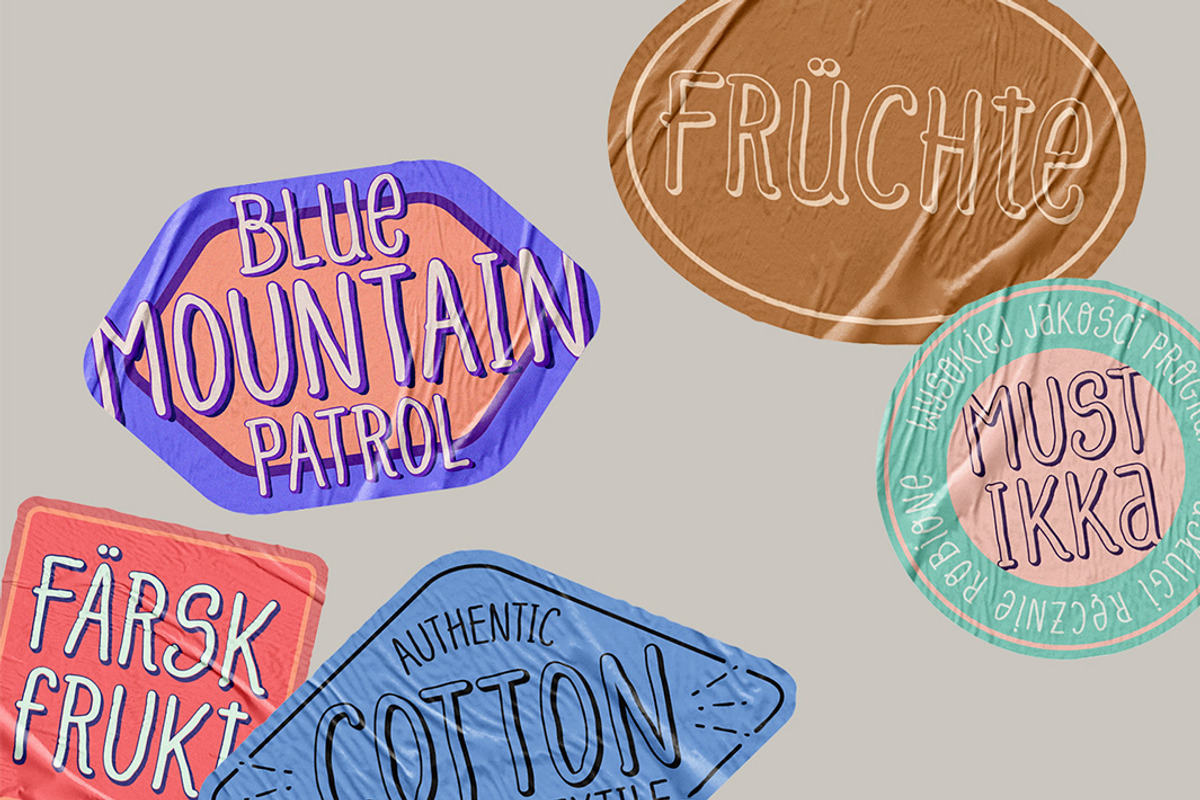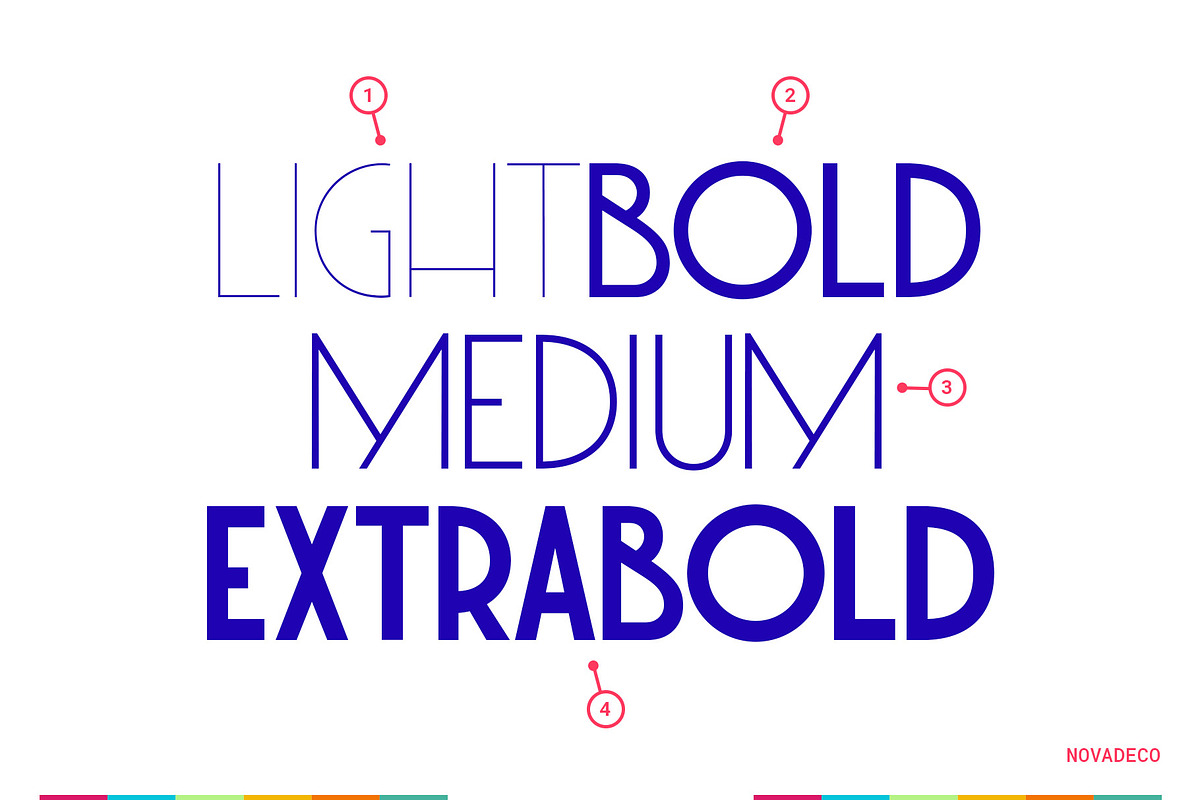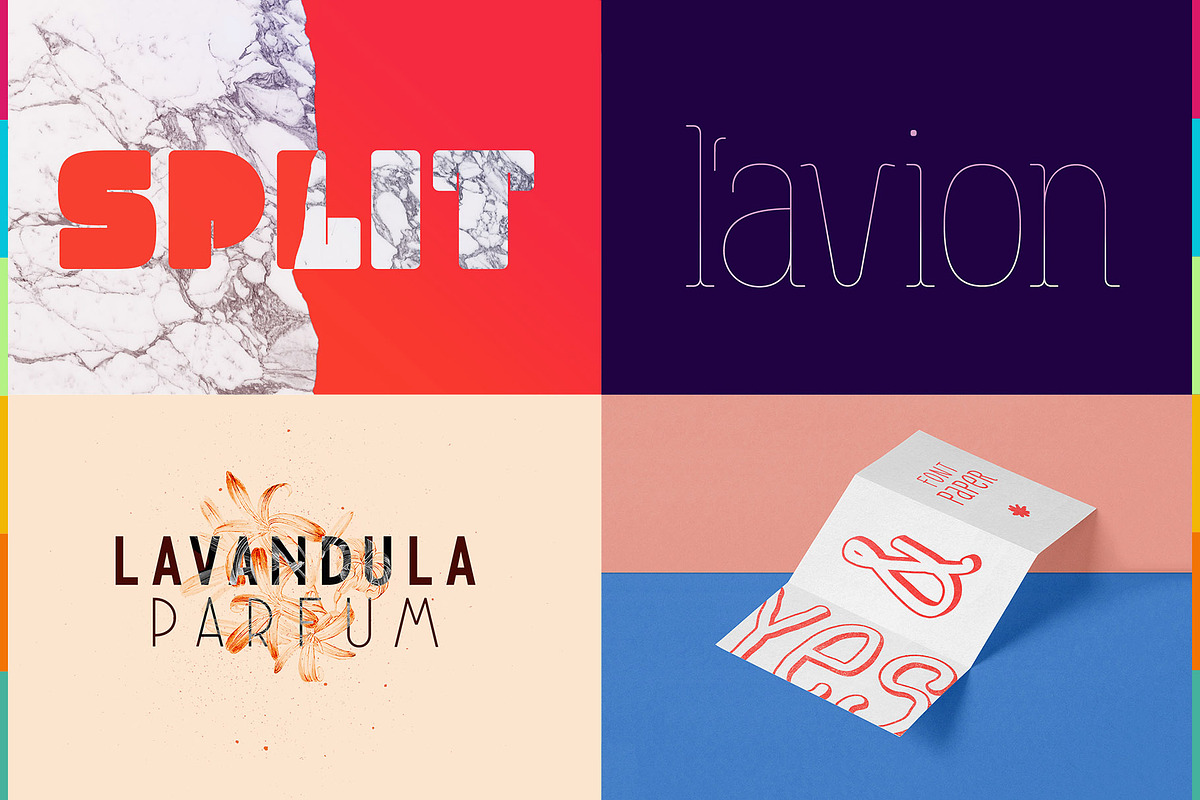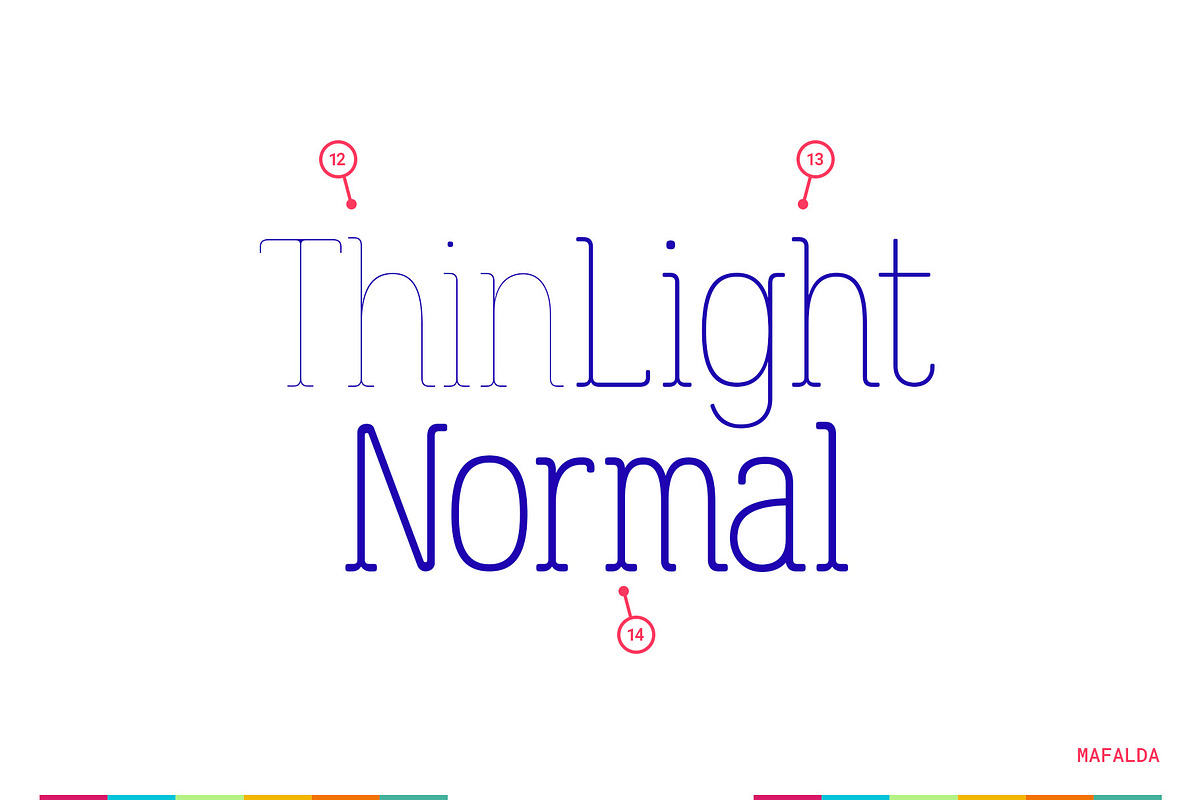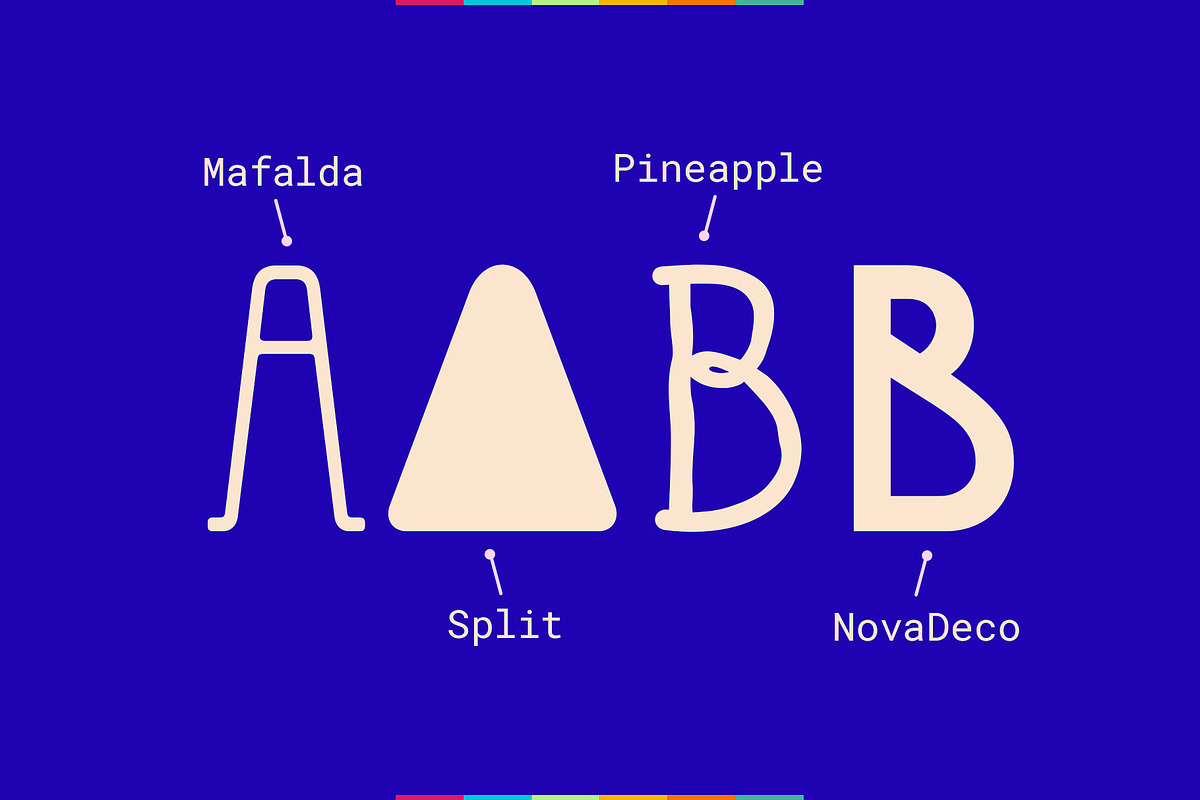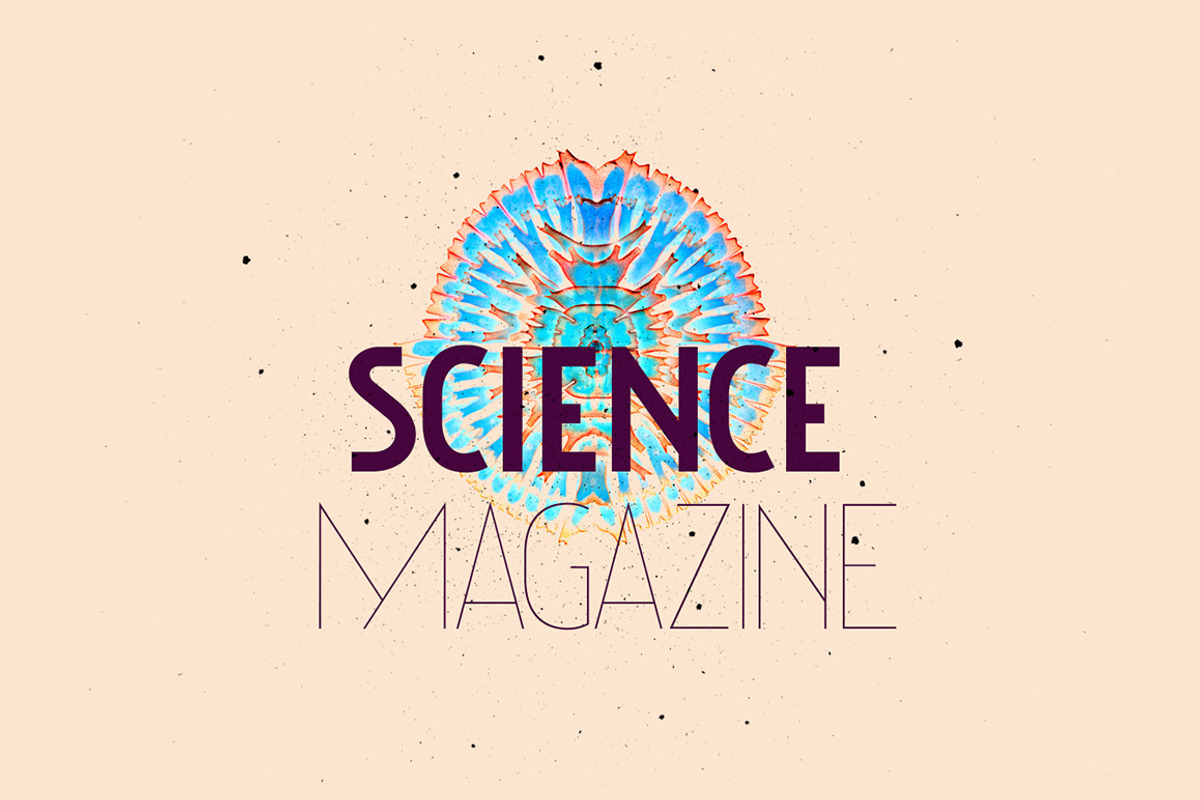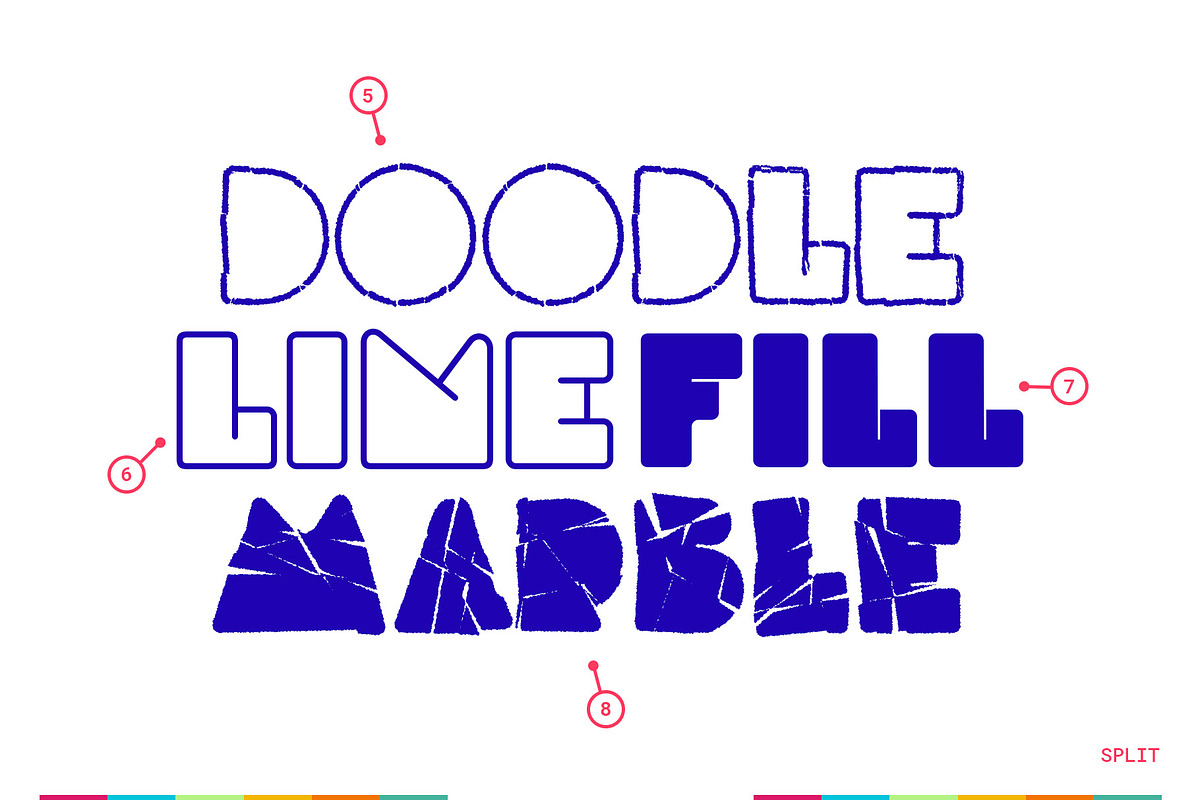
Font Bundle Collection vol.1
Font Bundle Collection vol.1 by Types & Boats
The first Types & Boats font bundle collection is here and includes all of our type families with 14 fonts (Display & Sans Serif). This bundle is an awesome choice for your next design project. Its a perfect match for posters, headings, logos, merchandise, t-shirts, magazine, banner, and for many other purposes you may want.
All fonts supports over 72 languages, including: Danish, Dutch, English, Portuguese, Finnish, German, French, Galician, Icelandic, Indonesian, Irish, Italian, Norwegian Bokmål, Norwegian Nynorsk, Romansh, Spanish, Swahili, Swedish, Swiss German and more.